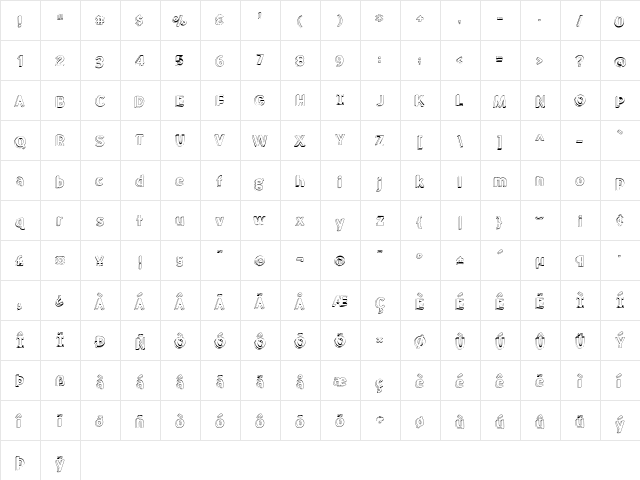
meatloaf shadow outline Regular
| Designer | Brittney Murphy |
Design Context for meatloaf shadow outline Typeface
meatloaf shadow outline brings ornamental detail and strong personality to headlines and identities, where visual impact matters more than quiet functionality.
Font Pairing: Pair with a clean neutral sans-serif for body copy to let meatloaf shadow outline's character lead without overwhelming the composition.
Pro Tip: Treat meatloaf shadow outline as the centrepiece of your typographic hierarchy. One strong heading set in a decorative face can carry an entire layout.